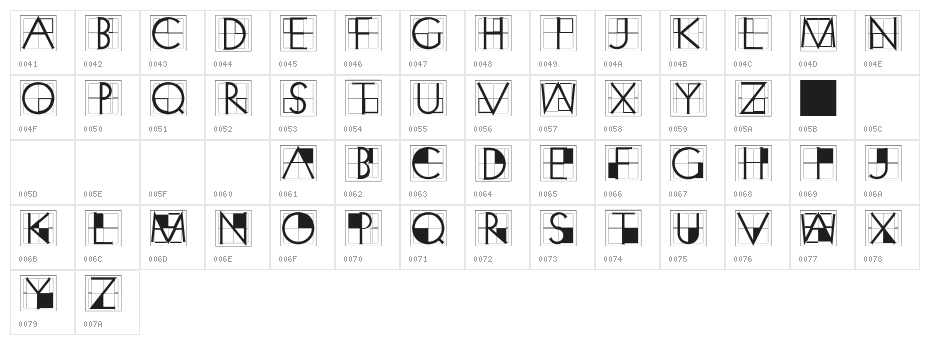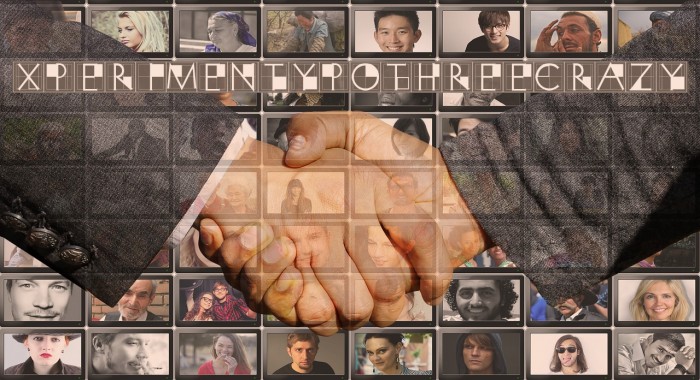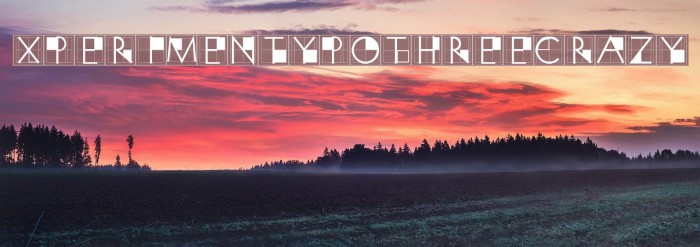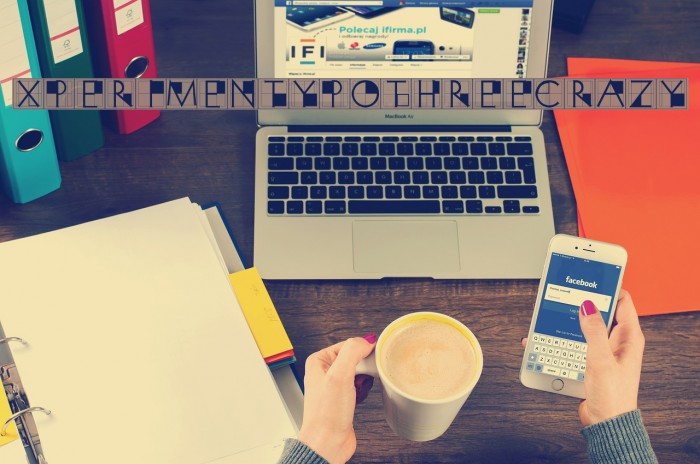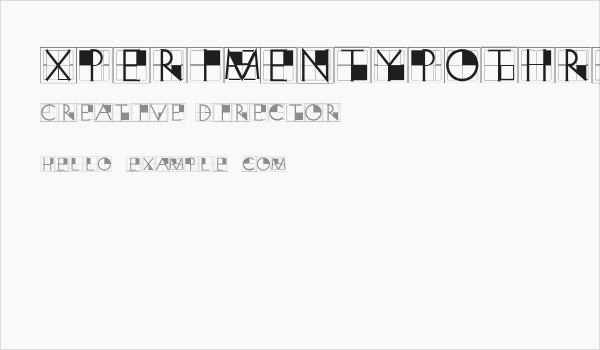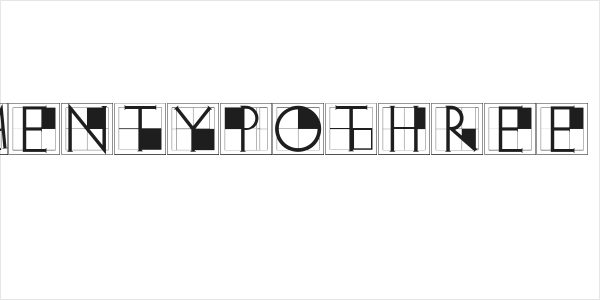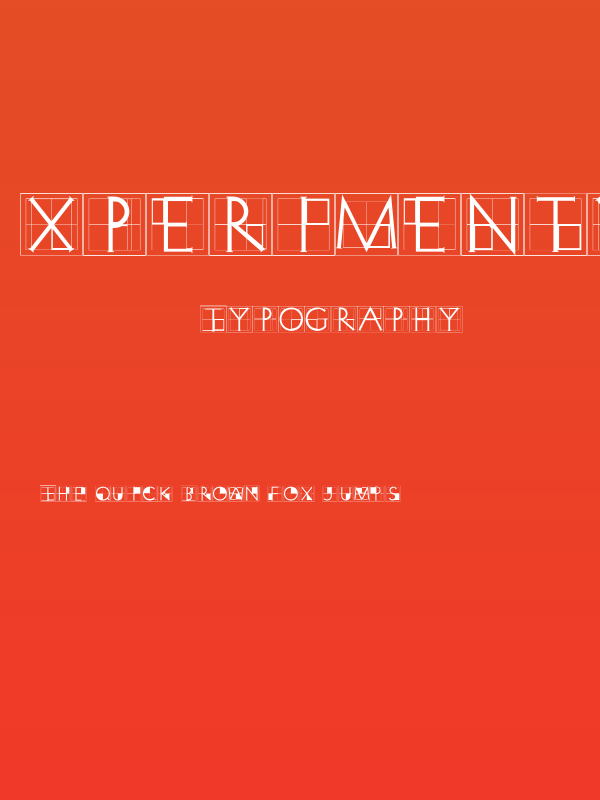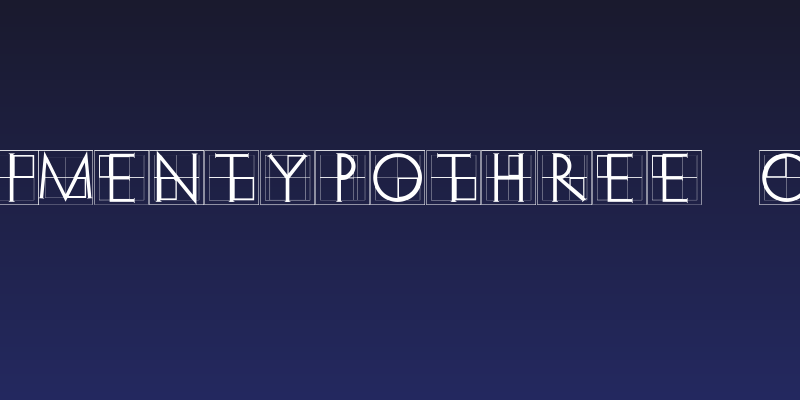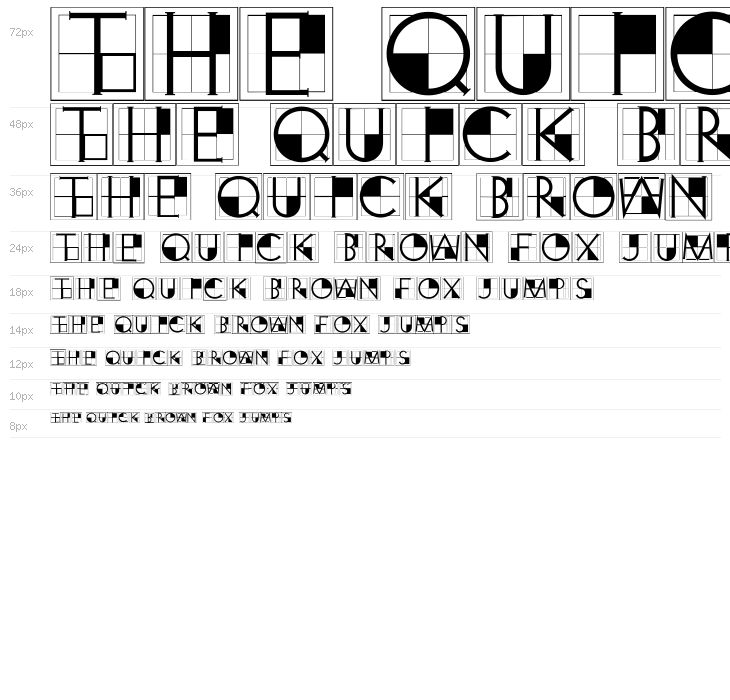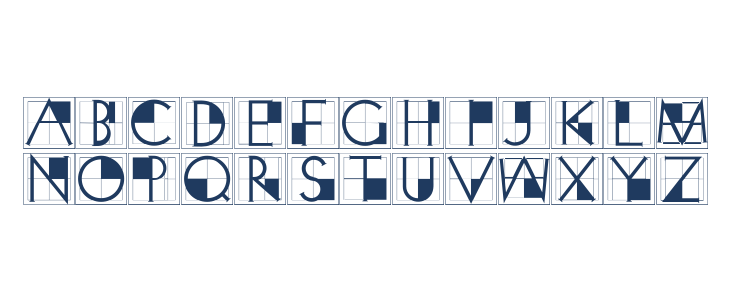
XperimentypoThree-Crazy Font
XperimentypoThree-Crazy Description
This font features a highly geometric and experimental design, characterized by its use of bold, angular shapes and negative space. Each letter is enclosed within a square grid, emphasizing its structural form. The design plays with symmetry and asymmetry, creating a dynamic and visually striking appearance. The font's unique style makes it stand out, with each character offering a distinct visual experience. Its unconventional approach to letterforms makes it suitable for creative and artistic projects that require a modern and avant-garde aesthetic.
| Use Case | Logos, Posters, Album Covers |
| Proposed Projects | Ideal for modern art projects, experimental design work, album covers, and avant-garde branding. |